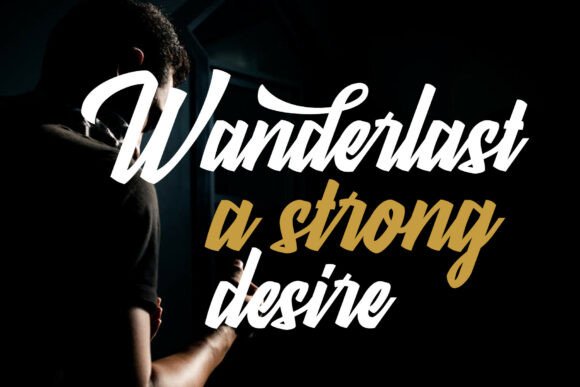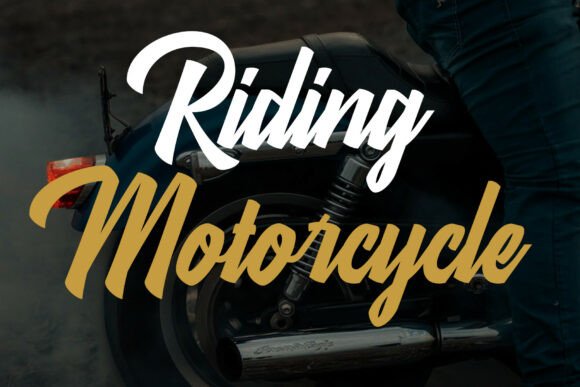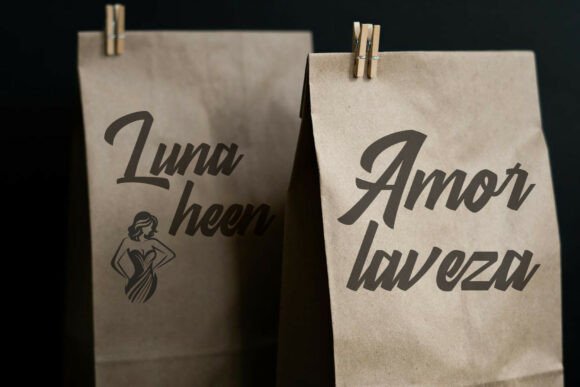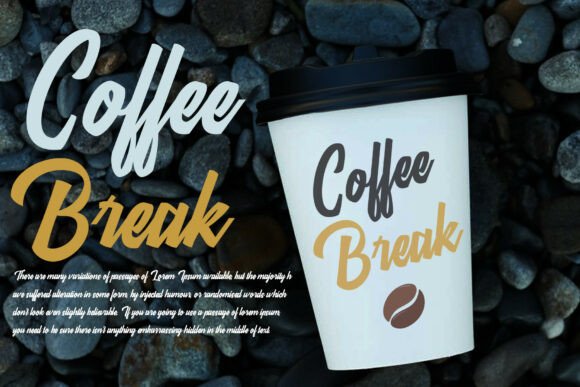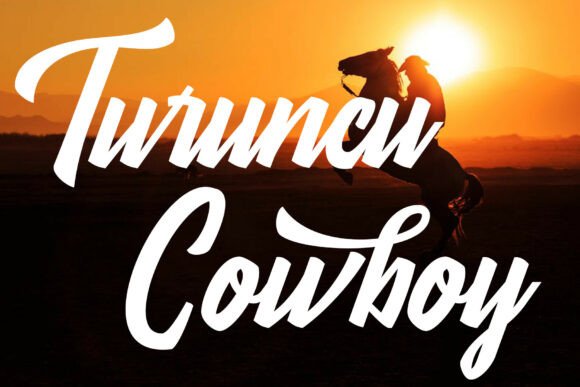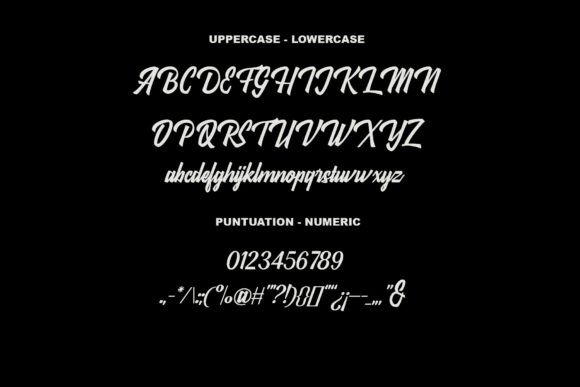
Introduction to Kathers Mellow Font
Have you ever been working on a creative project, pouring your heart and soul into it, only to feel like it’s missing that special something to make it truly stand out? You’ve spent hours agonizing over the perfect font, searching for that one that will elevate your design and leave a lasting impression. Well, we’ve got the solution for you – welcome to the world of Kathers Mellow Font.
This stunning handwritten script typeface is more than just a pretty face; it’s a game-changer for designers looking to add a touch of sophistication and elegance to their work. With its bold, confident strokes and fluid rhythm, Kathers Mellow Font is the perfect choice for anyone looking to create a high-quality design that demands attention.
Key Features of Kathers Mellow Font
- High-quality, elegant design ideal for creative projects and presentations.
- Unique, mellow design aesthetic perfect for designers looking for a subtle yet effective font.
- Perfect for use in logos, branding, and other design elements where a clean, elegant font is desired.
Honest Review: Kathers Mellow Font
I recently stumbled upon the Kathers Mellow Font while searching for a free download for my creative project. I must say, I was pleasantly surprised by the high quality of this font.
What works well about this font is its versatility and smooth lines, making it perfect for use on both digital and print designs. The transparent background also allows for seamless integration with any background image or color, giving you more creative control over your design.
- ✨ Unique and modern design
- ✨ High-quality and crisp typography
However, there are a few limitations to consider. The font family is relatively small, with only a few weights and styles available. Additionally, the font may not be as versatile for use in small text sizes.
- ⚠️ Limited font family options
- ⚠️ May not be suitable for small text sizes
Overall, I’m impressed with the Kathers Mellow Font and would definitely recommend it as a valuable design resource for your next creative project.
Tips for Getting the Most Out of Kathers Mellow Font
To get the most out of Kathers Mellow Font, use it in conjunction with a transparent background to create a high-quality design resource. Experiment with different font sizes and styles to add visual interest to your project.
Kathers Mellow Font is perfect for a variety of creative projects, including:
- Presentation design
- Document design
- Branding and marketing materials